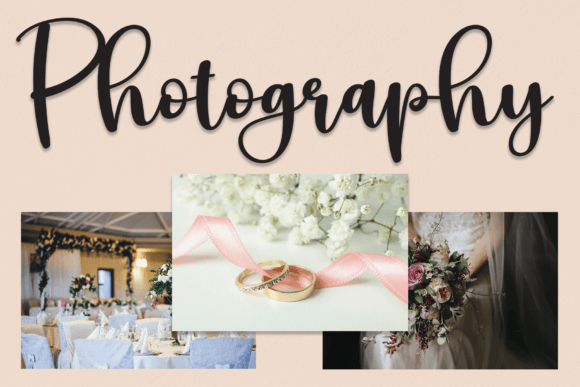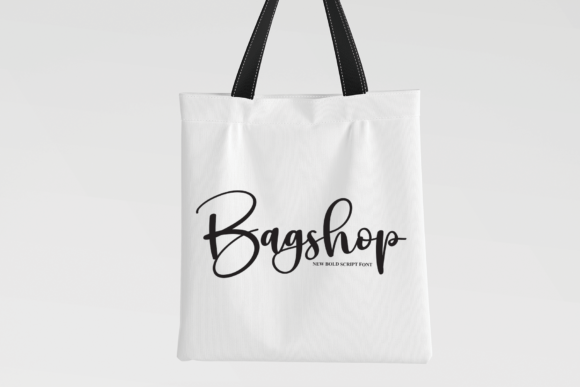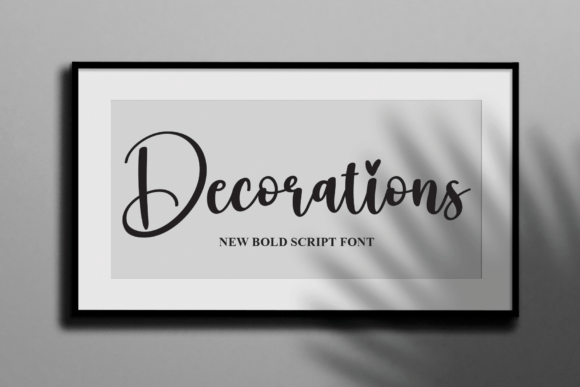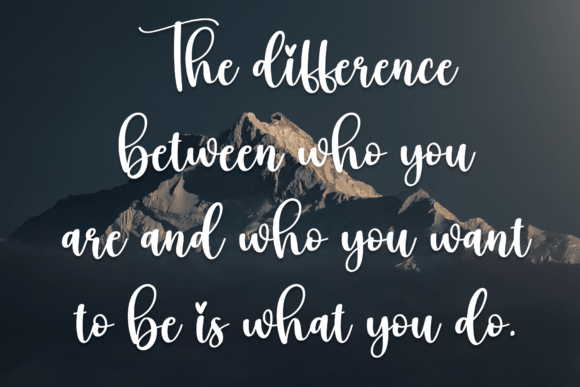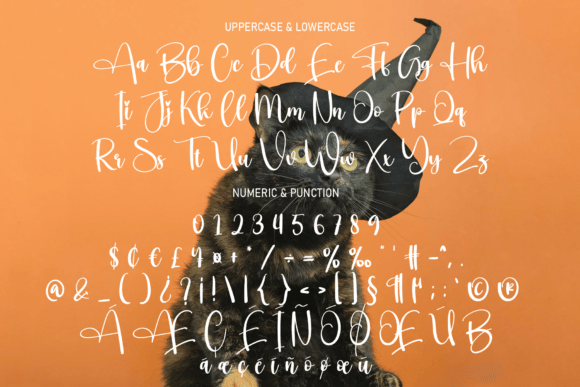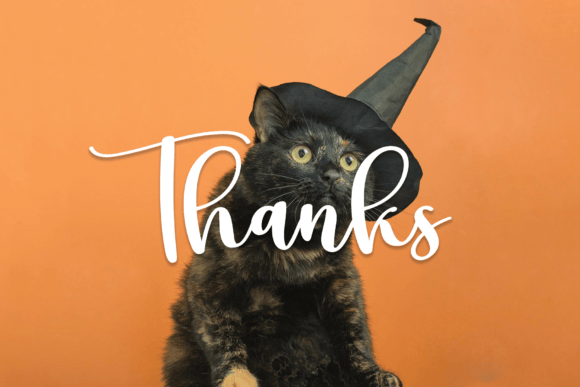
Witchy Font
About Witchy Font
“Witchy” is a stylish font that brings a touch of elegance and modernity to your creative projects. With its beautiful script style, this font offers a personalized and classy look, making it a great choice for a variety of art projects.
The unique and stylish qualities of “Witchy” make it suitable for different design contexts. Imagine using it for branding materials, adding a sophisticated touch to your logo or promotional materials. Picture it on invitations, where its elegant script contributes to a refined and classy presentation.
The modern and classy aesthetic of “Witchy” can enhance the overall look and feel of your designs. Whether you’re working on digital art, print projects, or any other creative endeavor, this font is crafted to provide a stylish and personalized touch.
As you incorporate “Witchy” into your art projects, let its stylish script be the key element that elevates your work. Whether you’re creating logos, branding materials, or any other design, “Witchy” invites you to infuse your projects with a modern and classy look, ensuring that your creations stand out with sophistication and charm.